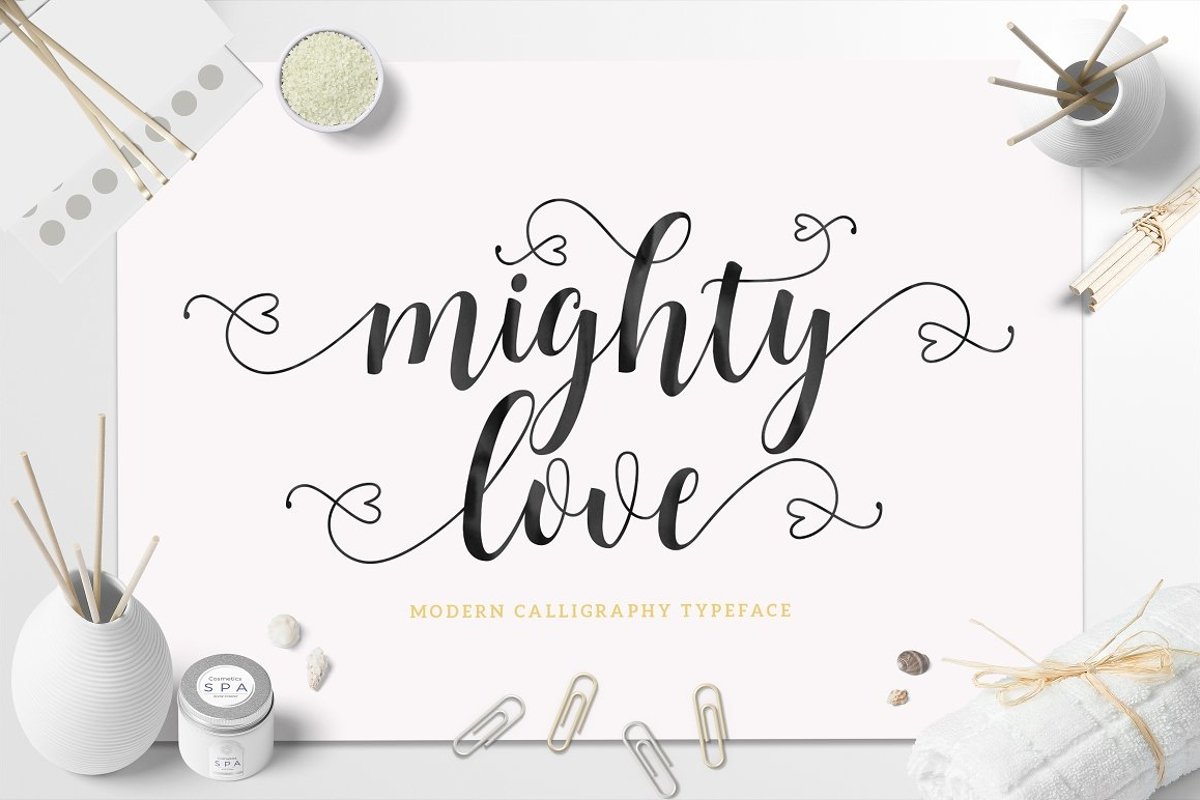
Mighty Love Script
Mighty Love
Mightylove Script a new fresh & modern script
with a handmade calligraphy style, decorative characters and a dancing
baseline! So beautiful on invitation like greeting cards, branding
materials, business cards, quotes, posters, and more!
Mightylove come with 370 glyphs. The alternative
characters were divided into several Open Type features such as Swash,
Stylistic Sets, Stylistic Alternates, Contextual Alternates, and
Ligature. The Open Type features can be accessed by using Open Type
-Initial Alternates
-Contextual Alternates
-Standard ligatures
-Unique ligatures
-Stylistic Alternates
-Stylistic sets
-Basic Latin A-Z and a-z
-Numbers
-International Symbols Support